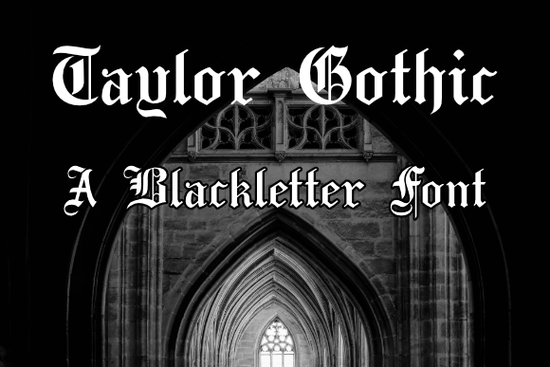
Taylor Gothic Font is a standout choice for anyone looking to add a strong, eye-catching element to their design work. This blackletter font has a bold and authentic feel that can bring a sense of history and craftsmanship to any project. Whether you're working on logos, signage, or creative prints, Taylor Gothic offers a unique visual identity that sets your work apart.
Blackletter fonts like Taylor Gothic are often used in branding, especially for businesses aiming to convey strength, tradition, or a vintage aesthetic. They can be particularly effective in print-on-demand projects, where the right font can make a big difference in how a design is perceived. For small businesses and creative hobbyists, using a font like Taylor Gothic can help create a professional look without the need for complex design skills.
What Makes Taylor Gothic Font Unique?
Taylor Gothic stands out because of its clean yet striking appearance. The font’s structure is both readable and dramatic, making it suitable for a wide range of applications. Its bold strokes give it a commanding presence, while the overall design remains balanced and elegant. This combination makes it versatile enough for use in both digital and physical formats.
One of the key benefits of using Taylor Gothic is its ability to add depth and personality to text. It works well with minimalist layouts, where the font itself becomes the focal point. It can also be paired with simpler typefaces to create contrast and visual interest. Designers who appreciate typography will find this font to be a valuable addition to their toolkit.
How to Use Taylor Gothic Font Effectively
When using Taylor Gothic, consider the context of your project. For example, if you're creating a logo, the font can add a sense of authority and confidence. In a poster or banner, it can draw attention and set the tone. For crafters and print-on-demand sellers, it can be used to create custom designs that stand out in a competitive market.
It's also important to test the font in different sizes and backgrounds. Blackletter fonts can sometimes be harder to read in smaller sizes, so it's best to use them for headings or large text elements. Pairing it with a more neutral font for body text can help maintain readability without sacrificing style.
Final Thoughts
Taylor Gothic Font is a reliable and stylish choice for designers, crafters, and small business owners who want to add a strong visual element to their work. Its bold, authentic style makes it ideal for a variety of projects, from logos to print materials. By understanding how to use it effectively, you can maximize its impact and create designs that resonate with your audience.
Before finalizing your design, take the time to test the font in different scenarios. Experiment with size, color, and pairing to find the best fit for your project. With a little practice, you'll be able to use Taylor Gothic to elevate your work in a meaningful way.